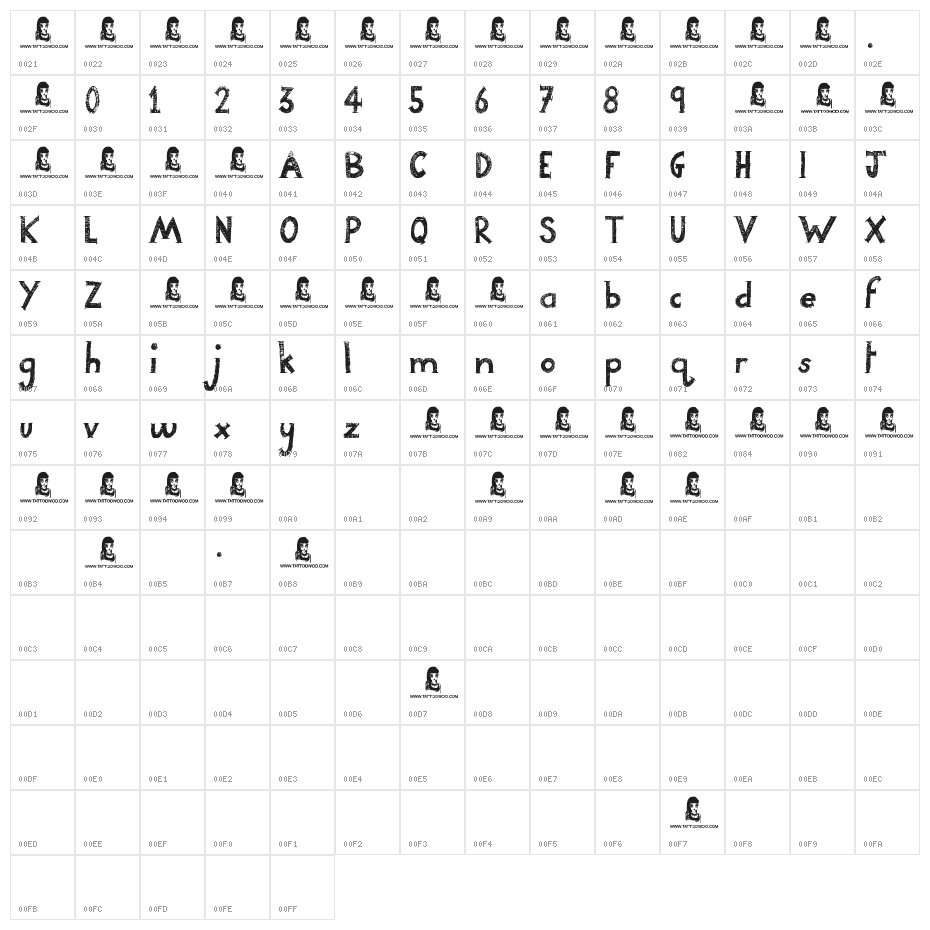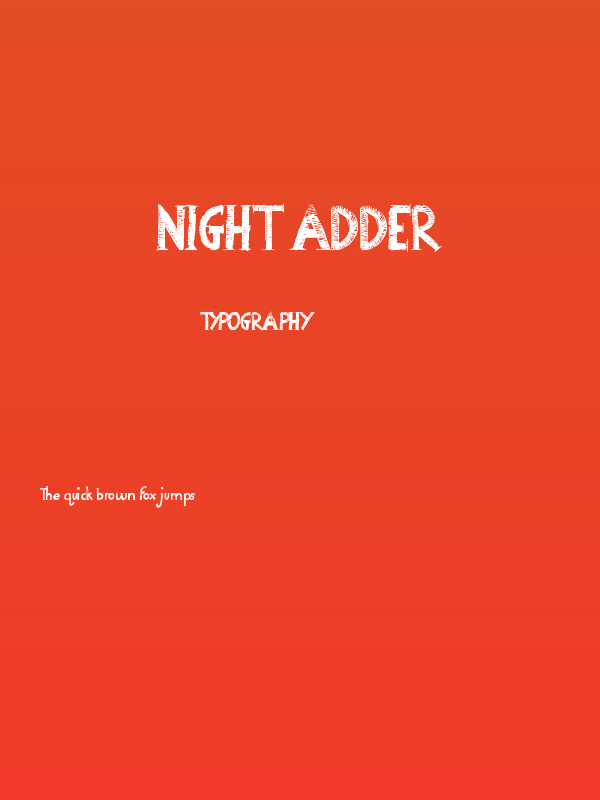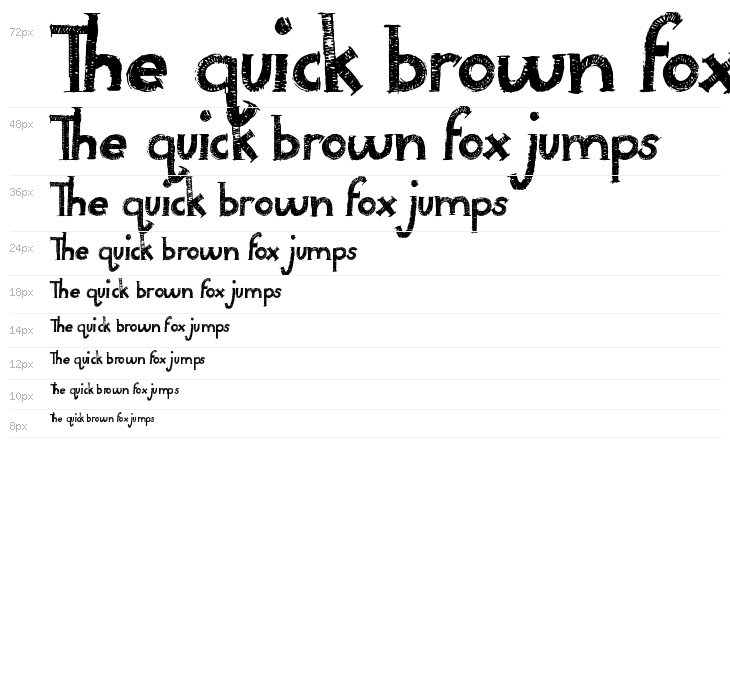
Night Adder Font
Night Adder Description
This font features a bold, textured style with a hand-drawn appearance, giving it a unique and artistic flair. The letters are characterized by uneven strokes and a sketch-like quality, creating a dynamic and energetic look. The uppercase and lowercase letters maintain a consistent style, with a playful and slightly chaotic arrangement. Numbers and special characters follow the same design, ensuring a cohesive appearance across all elements. This font's distinctive texture and bold presence make it stand out, suitable for creative and eye-catching designs.
| Proposed Projects | Ideal for posters, album covers, artistic branding, and creative projects that require a bold statement. |